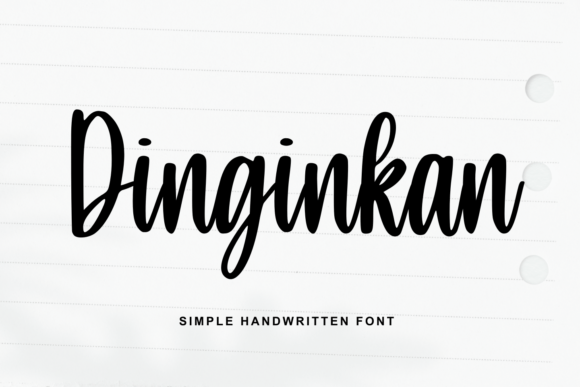
The Perfect Script for Everyday Charm
There’s nothing quite like the thrill of brainstorming a new project – the blank page staring back at you, full of endless possibilities. It’s the moment when creativity takes center stage, and anything seems achievable. And for designers, this spark of inspiration can be the catalyst for something truly special. Whether it’s a casual branding project or a heartfelt quote, the right font can make all the difference.
That’s where Dinginkan Font comes in – a playful handwritten script that brings effortless simplicity to your designs. With its smooth strokes and natural rhythm, Dinginkan Font is the perfect choice for capturing the charm of everyday moments. Its relaxed warmth and friendly personality make it a valuable addition to any designer’s toolkit, adding a touch of whimsy to even the most mundane projects.
Dinginkan Font Key Features
- Unique Character Set: Dinginkan Font features a unique character set that includes a wide range of languages, including Latin, Cyrillic, and Devanagari scripts.
- Style Variations: The font includes a range of style variations, including bold, italic, and condensed styles, allowing for added flexibility in design applications.
- Scalability: Dinginkan Font is designed to be highly scalable, ensuring that it remains legible and clear even at very small or very large font sizes.
Dinginkan Font Review
Overall, I’m quite impressed with the Dinginkan Font. Here are some of its standout features:
- ✨ Unique aesthetic: The Dinginkan Font has a distinctive, hand-drawn feel that’s perfect for adding some personality to your designs.
- ✨ Versatility: This font is suitable for a wide range of projects, from logos and branding to digital products and print materials.
- ✨ Customizable: The Dinginkan Font comes with a variety of weights and styles, allowing you to customize it to fit your specific needs.
- ⚠️ Limited language support: The Dinginkan Font may not be compatible with all languages, which could be a problem if you need to use it for multilingual projects.
- ⚠️ Not ideal for body text: While the Dinginkan Font is great for headlines and titles, it may be too decorative for large blocks of body text.
Overall, I think the Dinginkan Font is a great choice for designers who want to add some flair to their projects. With its unique aesthetic and versatility, it’s definitely worth considering. However, be aware of its limitations, and use it judiciously to get the most out of it.
Dinginkan Font is perfect for:
- Social media graphics
- Blog posts and articles